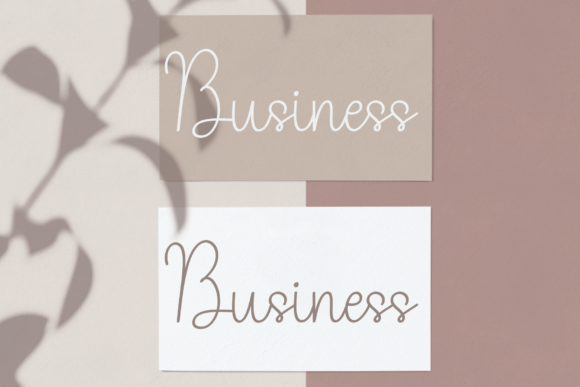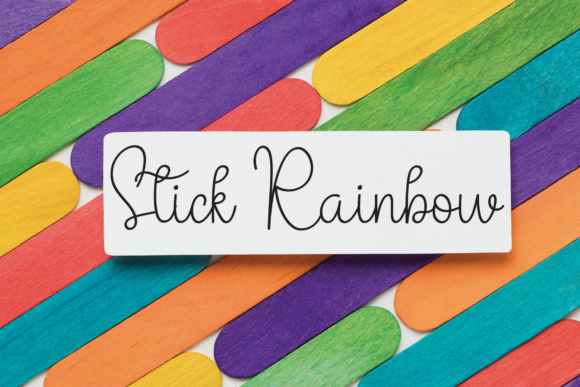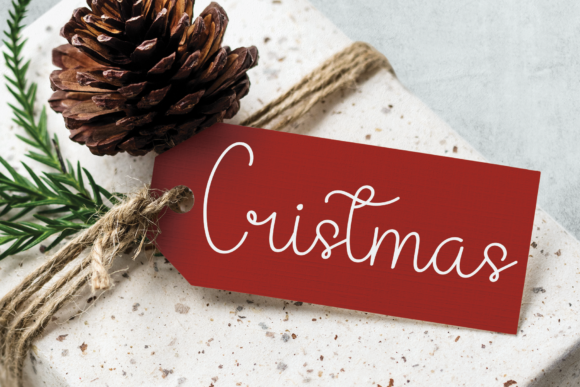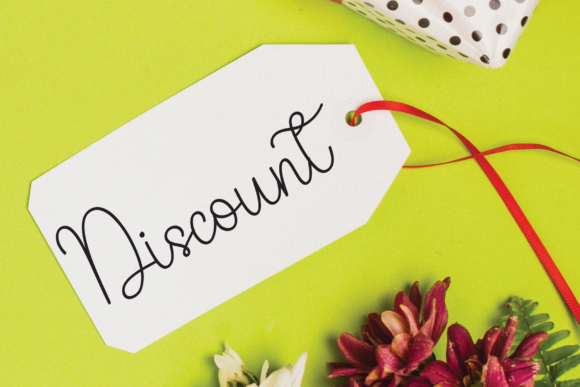
Script Fonts Hourly Font 0 143 FacebookTwitterPinterestWhatsApp 1 of 5 Hourly Font Poster 2... Hourly Font Poster 3... Hourly Font Poster 4... Hourly Font Poster 5... About Hourly Font Hourly is a sweet handwritten font that was crafted with great care to produce the expected results. It has a beautiful and balanced character, that fits well with the large design pool. DOWNLOAD NOW